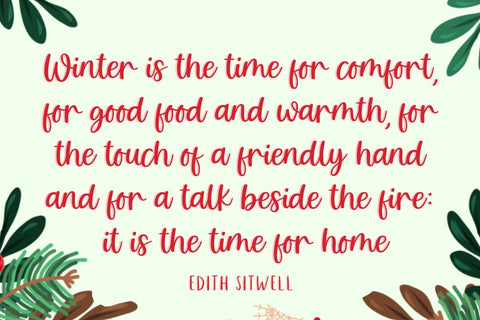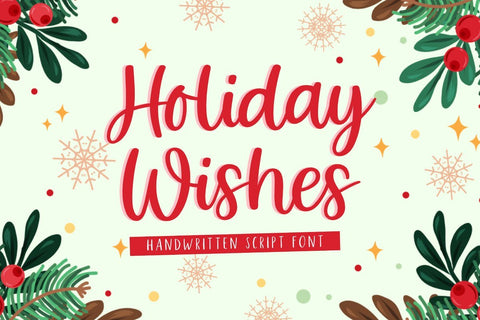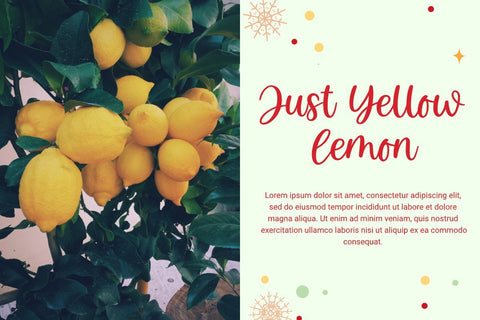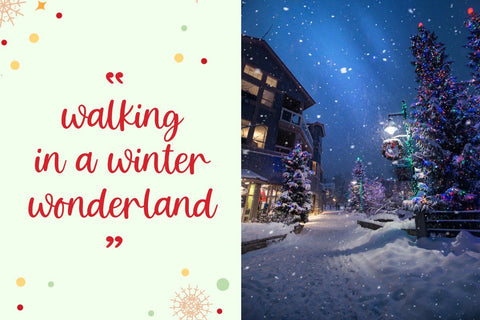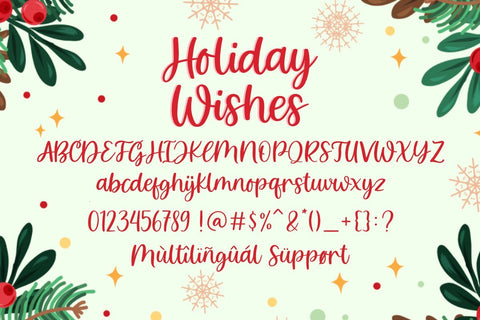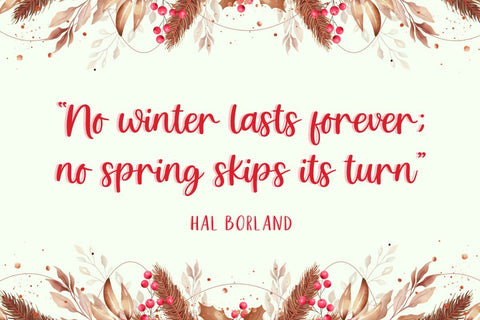
Holiday Wishes | Handwritten Script Font
Holiday Wishes is an elegant handwritten font. This elegant font will give your designs that fresh, modern feel to it and will look lovely on branding, digital designs, social media, websites, blogs, business cards, Instagram, invitations, logos, Cricut, and more!
Multilingual support from Holiday Wishes:
ÁÂÄÀÅÃÆÇÉÊËÈÍÎÏÌÑÓÔÖÒØÕŒŠÚÛÜÙÝŸŽ
àáâãäåæçèéêëìíîïñòóôõöøœùúûüýÿšž